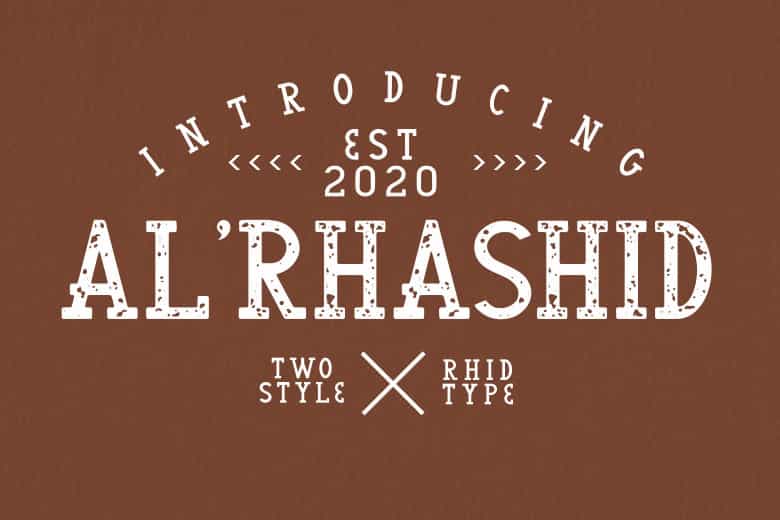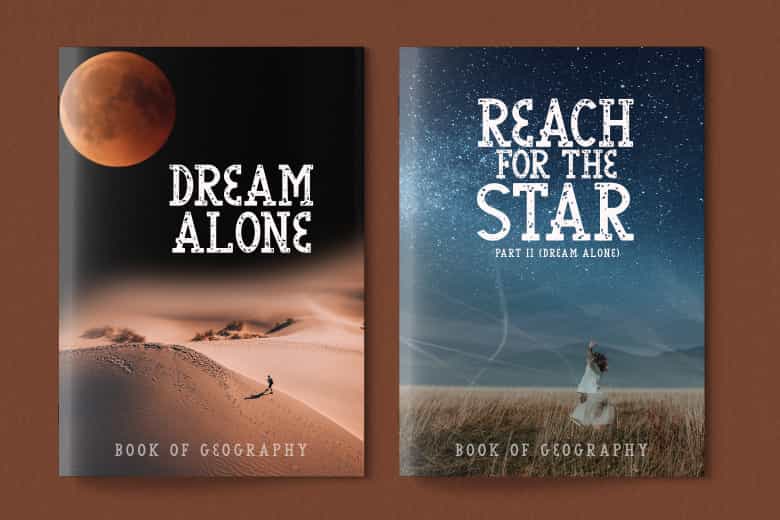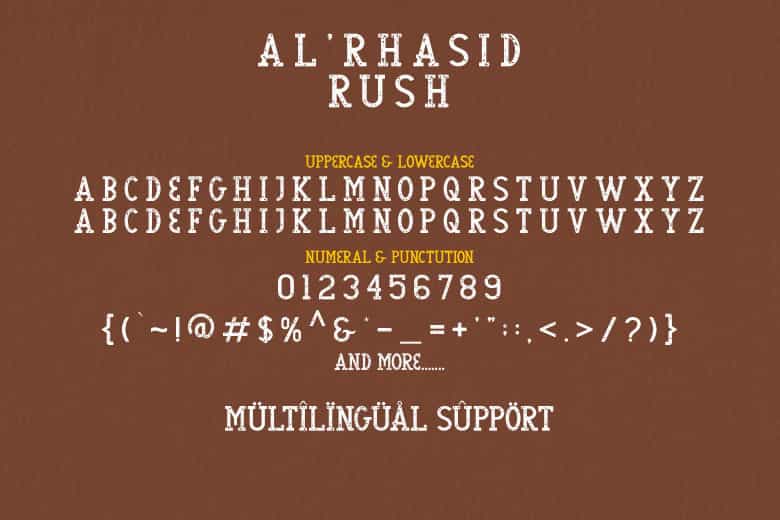
Al’Rhasid Font offers a rough and bold slab serif font. This typeface features thick letters for an unforgettable aesthetic – adding it to your project will never regret it!